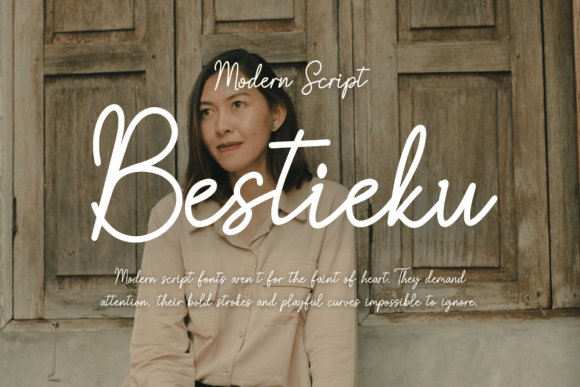
The Ultimate Guide to Bestieku Font: Adding Playfulness to Your Designs
I’ll never forget the time I was working on a project for a children’s party invitation. I had the design concept nailed, but I just couldn’t find the right font to bring it all together. The invitation needed to be fun, playful, and eye-catching. That’s when I stumbled upon Bestieku Font. It was love at first sight! With its whimsical letterforms and unique charm, it instantly elevated my design and made it shine. In this article, I’ll share my experience with Bestieku Font, its features, and how to make the most of it in your designs.
An Honest Review of Bestieku Font
What I Love About Bestieku Font
- ✨ Unique and Whimsical Design: Bestieku Font has a one-of-a-kind, modern script style that adds a playful twist to any design.
- ✅ Ease of Use: The font is easy to read and works well for both headlines and body text.
- 💥 Versatility: It’s perfect for a wide range of design projects, from eye-catching headlines and vibrant posters to playful branding projects.
- 🎉 OpenType Features: Bestieku Font comes with a range of OpenType features, including stylistic alternates, swashes, and ligatures, which allow you to customize your text and make it more creative.
While Bestieku Font is an amazing addition to any design project, there are a few things to keep in mind:
- ⚠️ Legibility at Small Sizes: Like many script fonts, Bestieku can be a bit tricky to read at very small sizes. It’s best used for headlines or larger text.
- 🤔 Pairing with Other Fonts: Due to its unique style, Bestieku Font can be a bit challenging to pair with other fonts. You’ll want to choose complementary fonts that don’t compete with its playful vibe.
The Story Behind Bestieku Font
Bestieku Font was designed with the intention of bringing joy and playfulness to design projects. Its creator, a passionate typographer, aimed to craft a font that would stand out in a sea of traditional fonts. Inspired by childhood memories of handwritten letters and doodles, Bestieku Font was born with a mission to add a personal touch to digital and print designs.
Q: What makes Bestieku Font unique?
A: Bestieku Font stands out due to its whimsical and modern script design, making it perfect for adding a playful twist to designs.
Q: Does Bestieku Font support OpenType features?
A: Yes, Bestieku Font comes with a range of OpenType features, including stylistic alternates, swashes, and ligatures, allowing for customizable and creative text designs.
Q: Is Bestieku Font easy to read?
A: Bestieku Font is designed to be easy to read, especially at larger sizes. It’s best used for headlines or larger text to ensure maximum legibility.